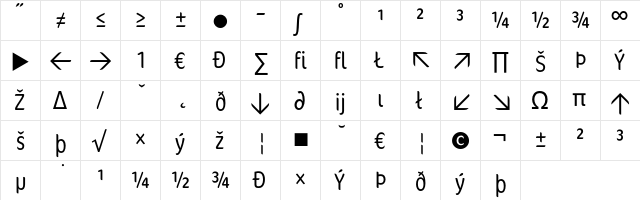
Cocon LightConExp Font Preview
Cocon LightConExp
Design Context for Cocon Typeface
Cocon offers clean, dependable letterforms without strong stylistic allegiance, making it a practical choice for designers who need flexibility. Its slender proportions lend an understated elegance to any composition.